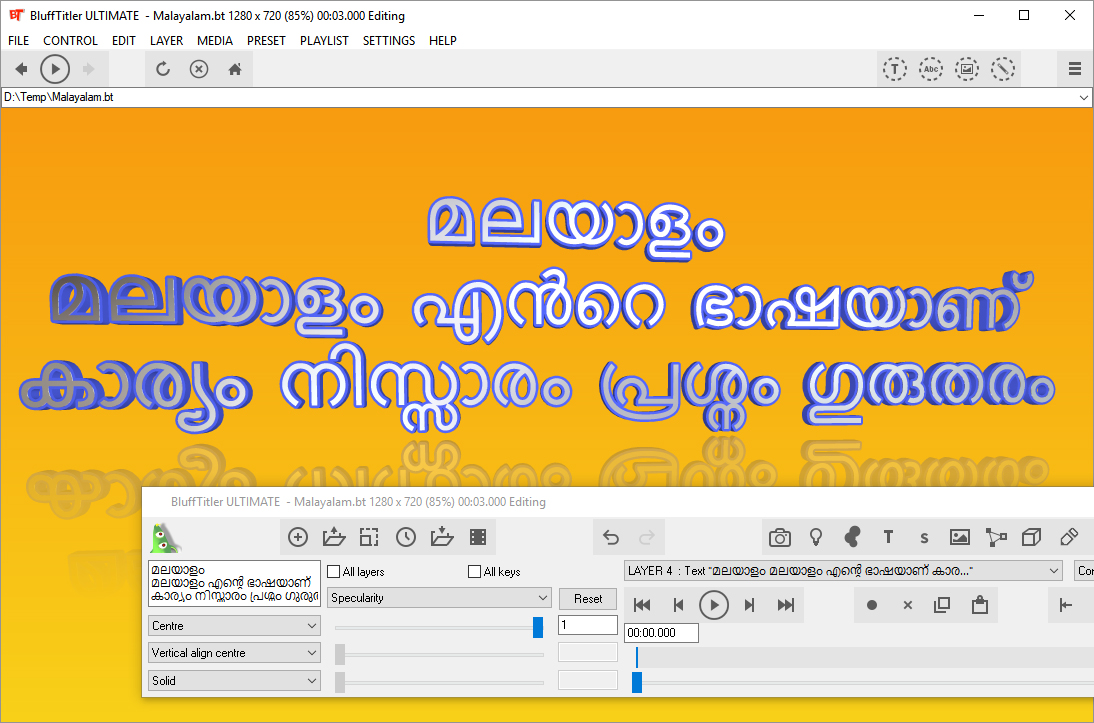
how can I use the malayalam fonts ( Souuth Indian) in bluff titler? many of them not supported even i tried unicode fonts but it shows the letters seperately , could anyone suggest me how to configure?
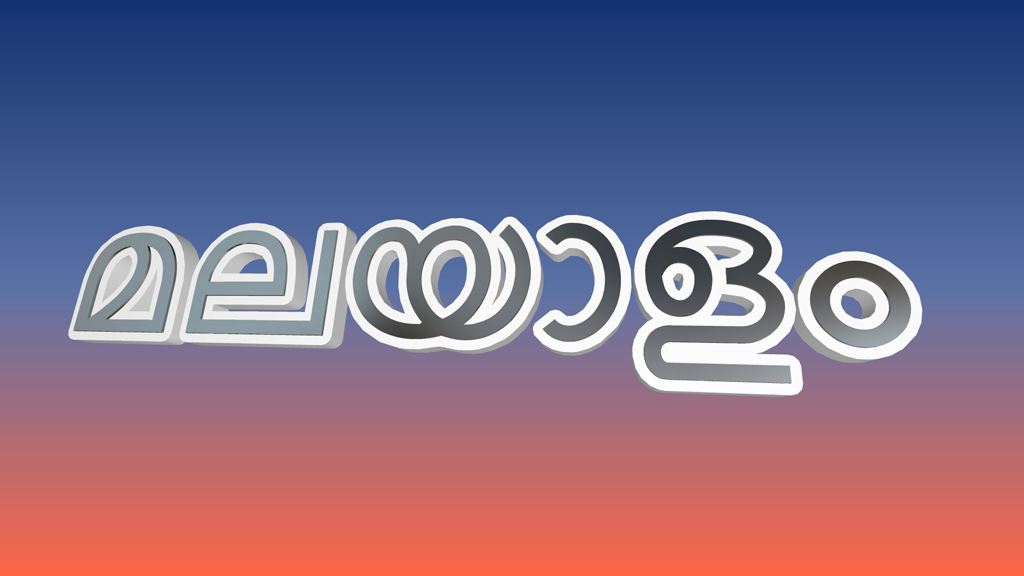
Thank you for the report. I tried the AnjaliOldLipi font and I think it looks fine.
What is the problem? Can you provide test strings?
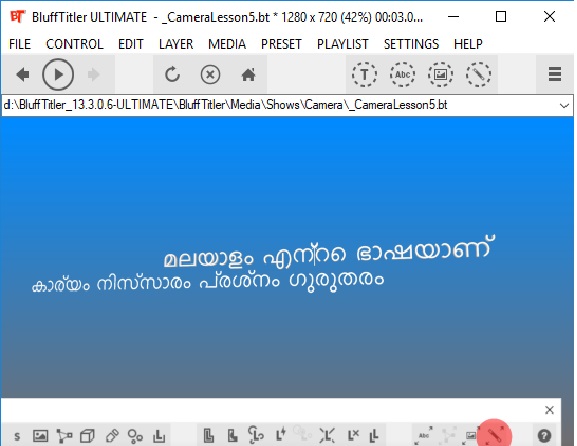
Please have a look the differences below . letters in one word doesnt comes together
this is the text
മലയാളം എന്റെ ഭാഷയാണ്
കാര്യം നിസ്സാരം പ്രശ്നം ഗുരുതരം
and it appears as below in the picture.. so it makes lot difference in reading
So some characters are accents that must be rendered on top of the previous character. Right?
I've identified 2 such characters:
്
ഁ
We'll try to fix this. Thank you for the test strings.
NOT ONLY THOSE TWO CHARECTERS BUT ALSO MANY OTHERS SO IT WOULD BE HIGHLY USEFUL TRY TO FIX IT MALAYALAM UNICODE FRIENDLY
YOU MAY FIND SOME EXAMPLES HERE
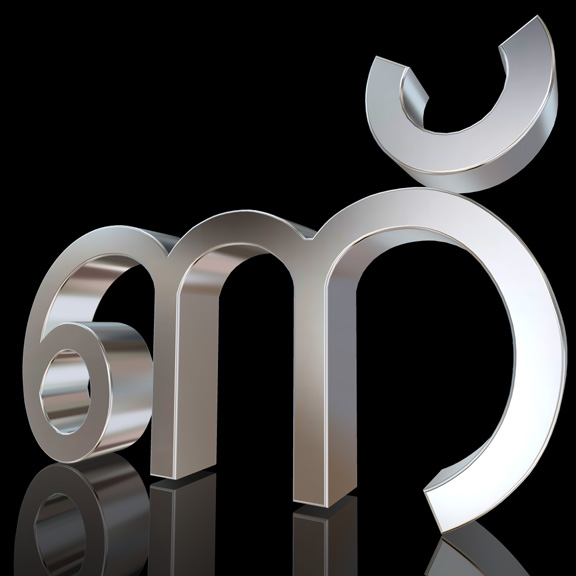
As far as I can see, Malayalam uses the same system as Thai and Khmer: the accents must be rendered right aligned on top of the previous character.
The accents can be rendered on top of all normal characters.
I identified 2 accents and only found examples of the 1st.
Can you post a list of all the Malayalam accents?
Thank you for the test fonts. The Malayalam script turns out to be more complex than rendering the accents at the right place. This will take a bit longer to sort out. Thank you for the test material!
THIS LOOKS BIT FINE, SO COULD YOU PLEASE EXPLAIN HOW DID YOU SOLVE IT?
Glad to hear it's correctly rendered now!
The solution turned out to be ligatures and glyph variants. Both are not used in Latin scripts, but are vital in Indian scripts.
They are not supported in the current version, but will be in the next.
We're currently updating the user guide, you can see a preview here. Remember that none of the techniques described on this page work in the version you are using right now:
any update on malayalam font support?